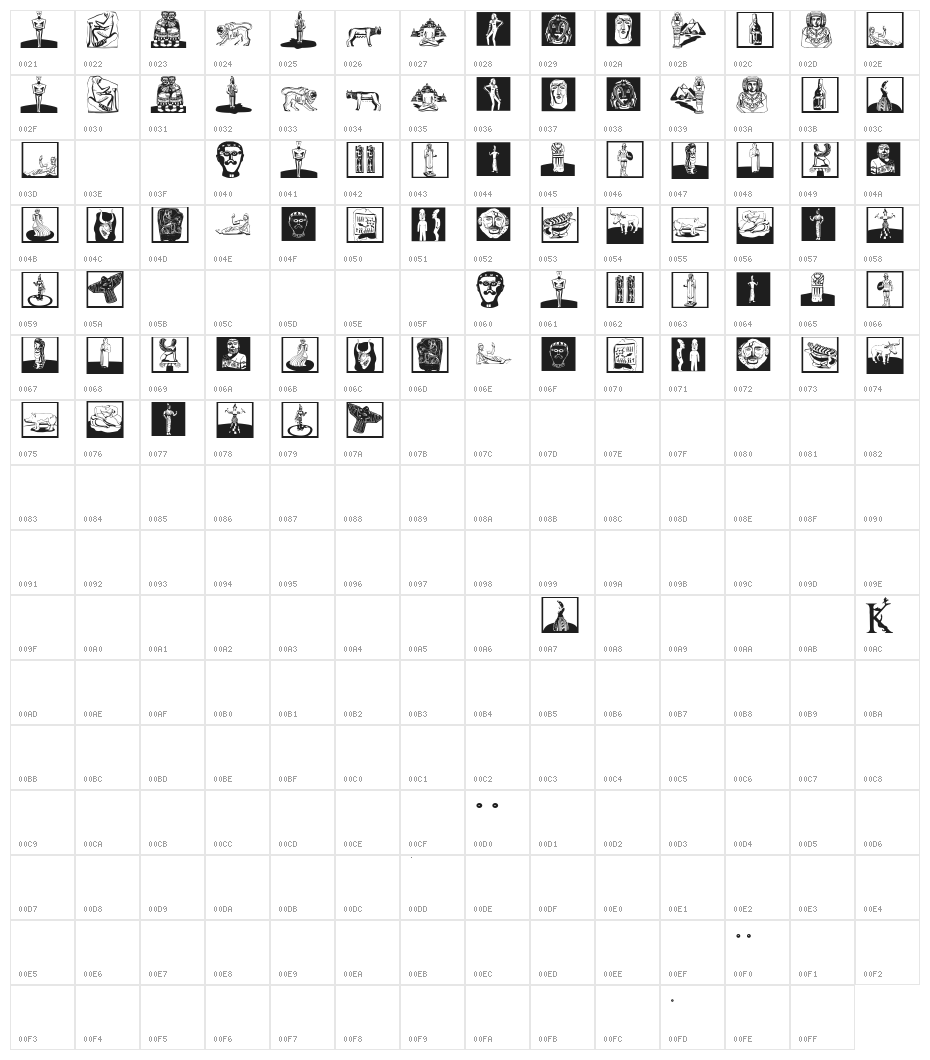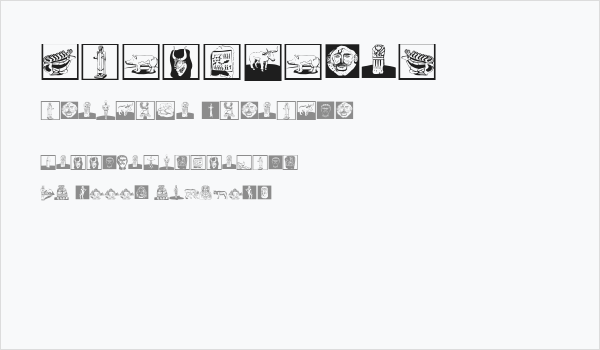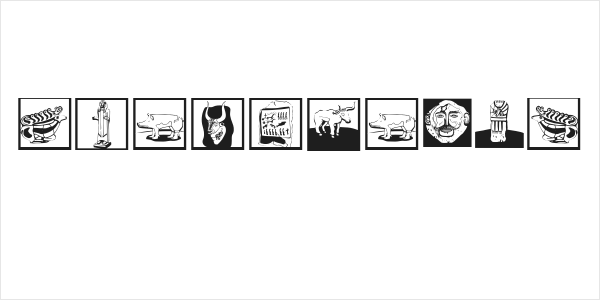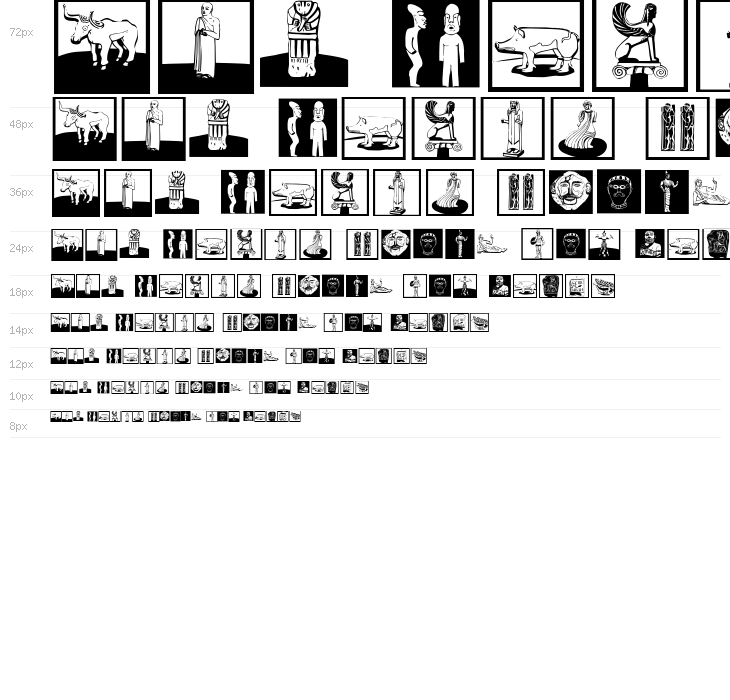
Sculptures Font
Sculptures Description
A decorative display font where each character is represented by a detailed black-and-white illustration of a famous sculpture or artifact, blending art history with typographic form. Each glyph is unique, visually complex, and highly illustrative, making letterforms secondary to the artwork depicted.
| Overall Style | Decorative, Artistic, Illustrative |
| Use Case | Logos, Headlines, Posters, Thematic graphics |
| Proposed Projects | Museum branding, art exhibition posters, educational materials, creative editorial layouts, and themed event invitations. |